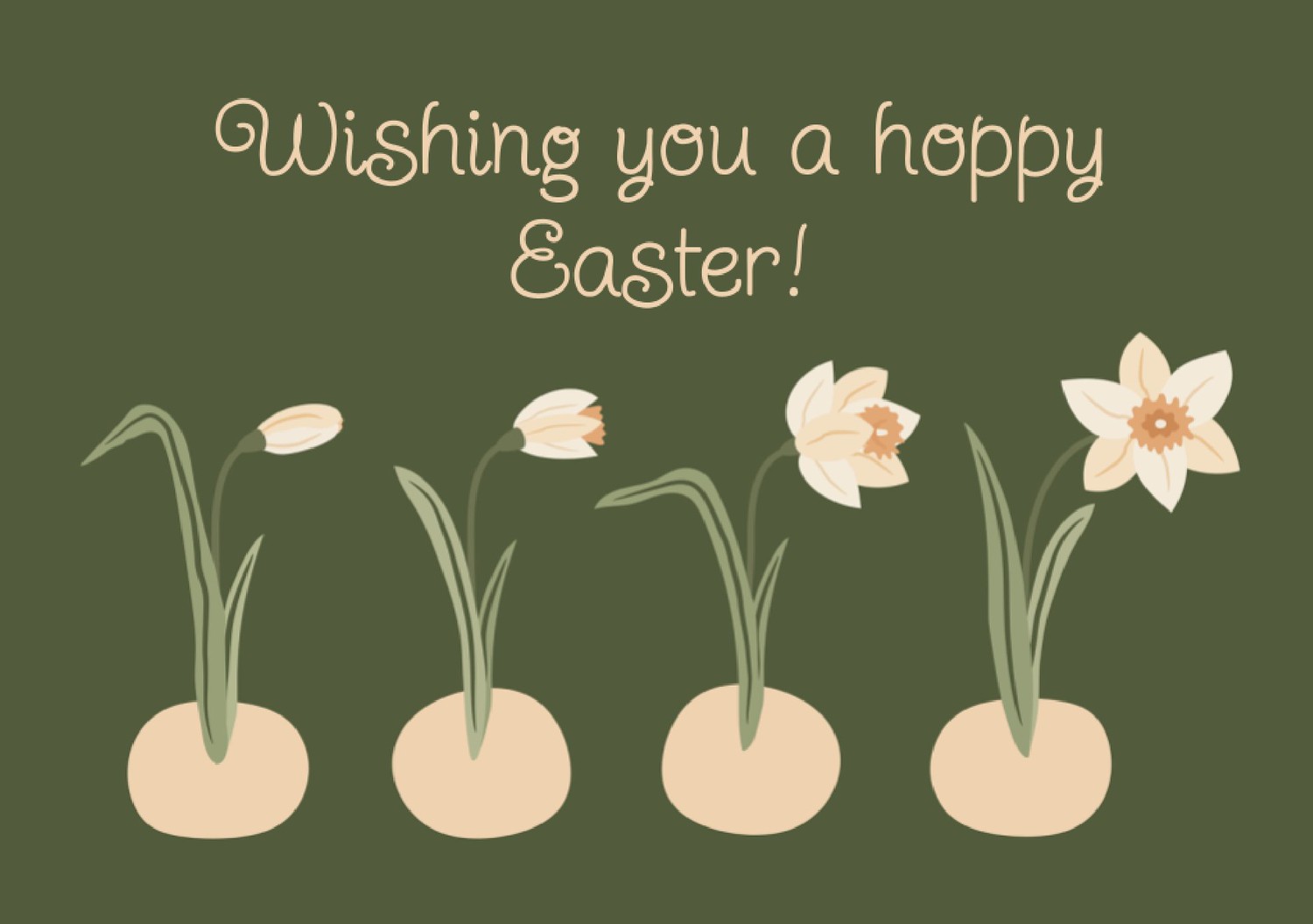
Twinkle Star Font Easter Google Docs Template
If you're looking for a whimsical and charming way to celebrate Easter, our Twinkle Star Font template is a perfect choice. This playful and unique template features the Twinkle Star font, which adds a touch of magic to your Easter projects.